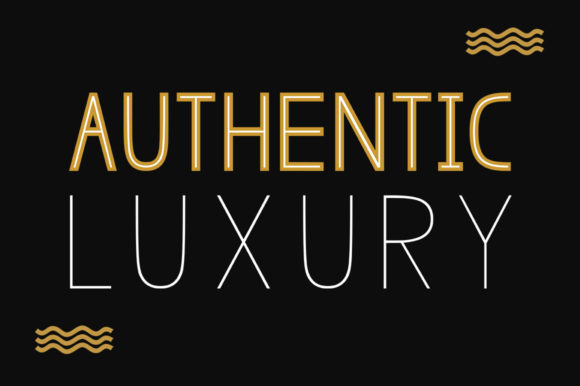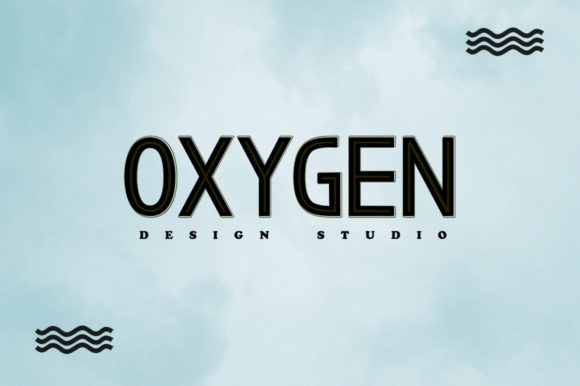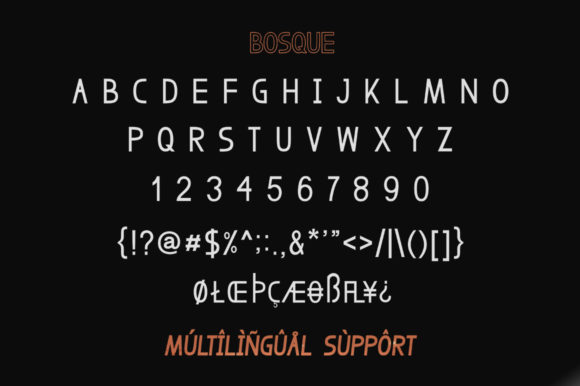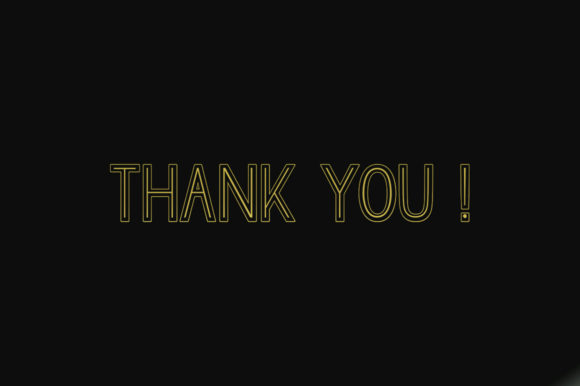
Remember the moment when you finally nailed down the perfect font for your latest design project? It’s that feeling of excitement and relief when everything comes together. For many designers, finding the right font can be a game-changer, and that’s exactly what the Bosque Font offers.
Bosque Font is a clean, casual, and simple styled sans serif font that’s perfect for a wide range of projects. Whether you’re working on a craft, creating a digital design, making a presentation, or designing a greeting card, this versatile font has got you covered. Its simplicity makes it an excellent choice for designers who want to add a touch of elegance without overwhelming their audience.
Bosque Font Key Features
- Font Family: Bosque Font is a sans-serif font family designed for digital use. It is available in multiple weights, ranging from Light to Black.
- Character Set: Bosque Font supports a wide range of languages, including Latin, Cyrillic, and Greek alphabets, making it a versatile choice for international typography.
- Size: Bosque Font is designed to be highly legible at various font sizes, from 8pt to 24pt. It is particularly well-suited for use in digital media, such as websites, apps, and e-books.
- Resolution: Bosque Font is designed to be scalable, making it suitable for use at high resolutions, such as Retina displays and other high-DPI screens.
- Unique Characteristics: Bosque Font features a unique blend of modern and traditional design elements, including a geometric sans-serif aesthetic and subtle rounded corners. This gives it a friendly, approachable feel that is well-suited for use in a wide range of applications.
Bosque Font Review
Bosque Font is a beautiful, elegant font that can add a touch of sophistication to any design project. Here are some of the things that work well: ✨
- Unique character set: Bosque Font has a distinct character set that can help your design stand out from the crowd.
- Good for body text: Despite being a display font, Bosque Font is suitable for use as body text, making it a versatile choice.
- Beautiful ligatures: The font’s ligatures are well-designed and add to its overall aesthetic appeal.
- Limited language support: Bosque Font may not have the same level of language support as other fonts, which can limit its use in certain projects.
- Not ideal for small text: While Bosque Font can be used as body text, it may not be the best choice for small text due to its complex design.
Overall, I think Bosque Font is a great choice for designers who want to add a touch of elegance to their projects. While it may have some limitations, its unique character set and beautiful ligatures make it a great addition to any design library.
Bosque Font is perfect for:
- Outdoor and nature-themed designs
- Rustic and vintage-inspired designs
- Photography captions and quotes